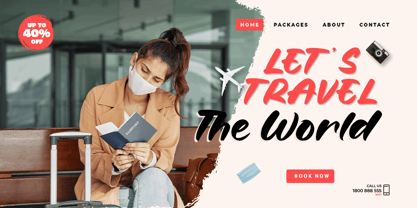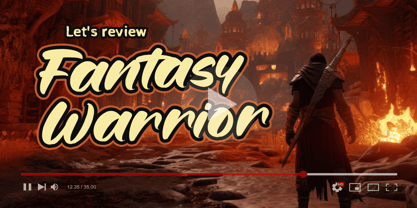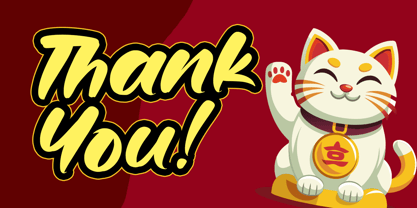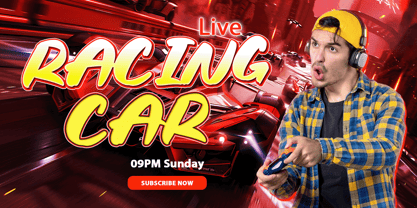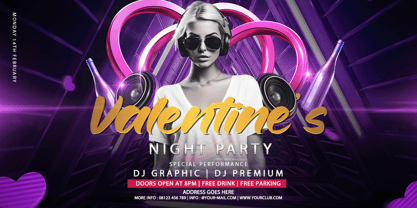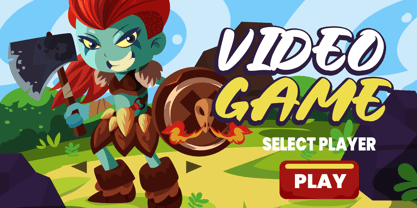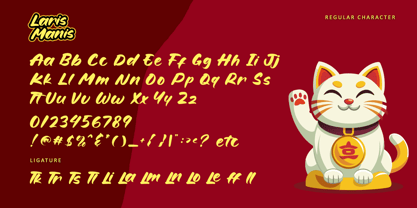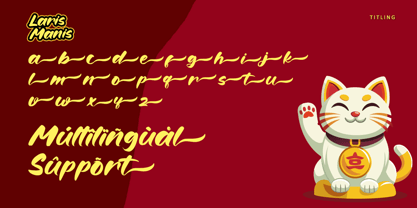
Laris Manis
by Letterara
The Laris Manis Font Family was designed by Thomas Aradea and published by Letterara. Laris Manis contains 2 styles and family package options. More about this family
Laris Manis is a modern bold Handwritten font, carefully handcrafted to become a true favorite. Its casual charm makes it appear wonderfully down-to-earth, readable, and, ultimately, incredibly versatile. This font will look outstanding in any context, whether it’s being used on busy backgrounds or as a standalone headline! This font is PUA encoded which means you can access all of the glyphs and swashes with ease!
Designers: Thomas Aradea
Foundry: Letterara